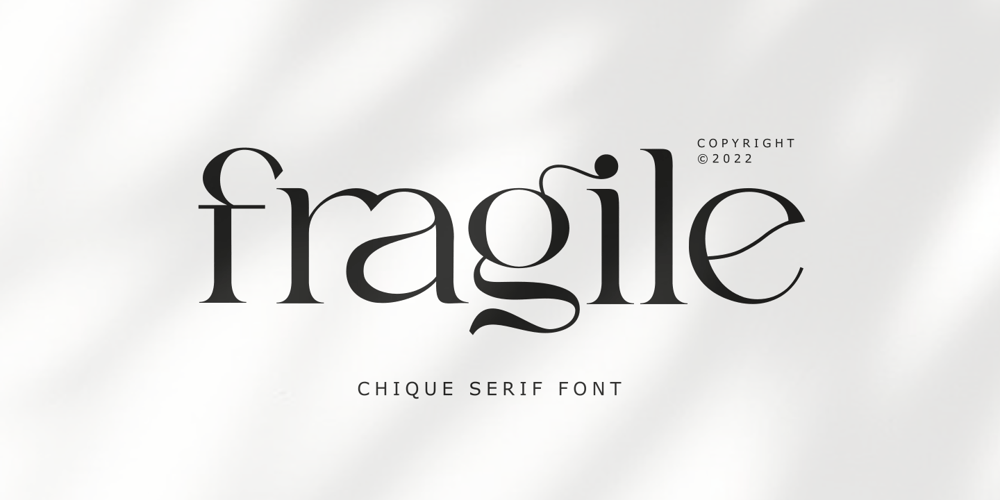
Zn Fragile Font Family was designed by Doni Purwoko and published by Zeenesia Studio. Zn Fragile contains 1 styles and family package options. fragile is an elegant chique font.fragile is a serif font, This font is perfect for Bandin, logo design, wedding, quotes, magazing anything do you want. You will get classy, elegant, and certainly unique logos with this font.